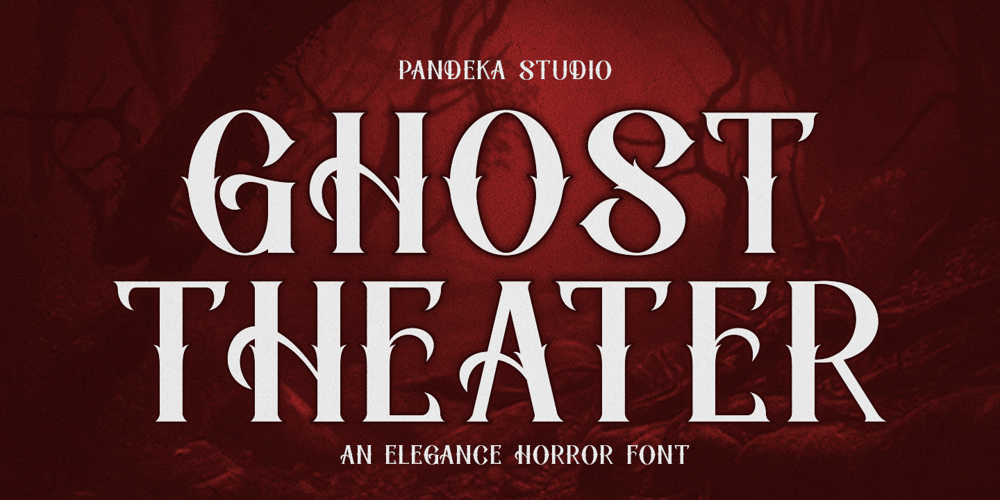
Ghost Theater Font Family was designed by Sagara Nararya and published by Pandeka Studio. Ghost Theater contains 6 styles and family package options. Introducing Ghost Theater – A Gothic and Sharp Horror FontStep into the dark and mysterious world of Ghost Theater, the perfect font for all your gothic and horror-themed designs. Inspired by the eerie atmosphere of haunted mansions and the spine-chilling ambiance of Halloween nights, Ghost Theater brings a sharp, sinister edge to every letter.With six distinct styles : Regular, Textured, Outline, Italic, Textured Italic, and Outline Italic, Ghost Theater offers versatility for any spine-tingling project. Whether you’re creating haunting headlines, eerie logos, or creepy social media posts, these styles ensure that your designs will have a striking, unforgettable impact.What;s Included? Ghost Theater Main FIles 6 Style : Regular, Textured, Outline, Italic, Textured Italic, and Outline Italic Unique letterforms Works on PC & Mac Simple Installations Accessible in the Adobe Illustrator, Adobe Photoshop, Microsoft Word even work on Canva PUA Encoded Characters Fully accessible without additional design software. Language Support: Danish, English, Estonian, Filipino, Finnish, French, Friulian, Galician, German, Gusii, Indonesian, Irish, Italian, Luxembourgish, Norwegian Bokmål, Norwegian Nynorsk, Nyankole, Oromo, Portuguese, Romansh, Rombo, Spanish, Swedish, Swiss-German, Uzbek (Latin)Feel free to follow, like and share. Thanks so much for checking out my shop!Have a great day!Pandeka Studio